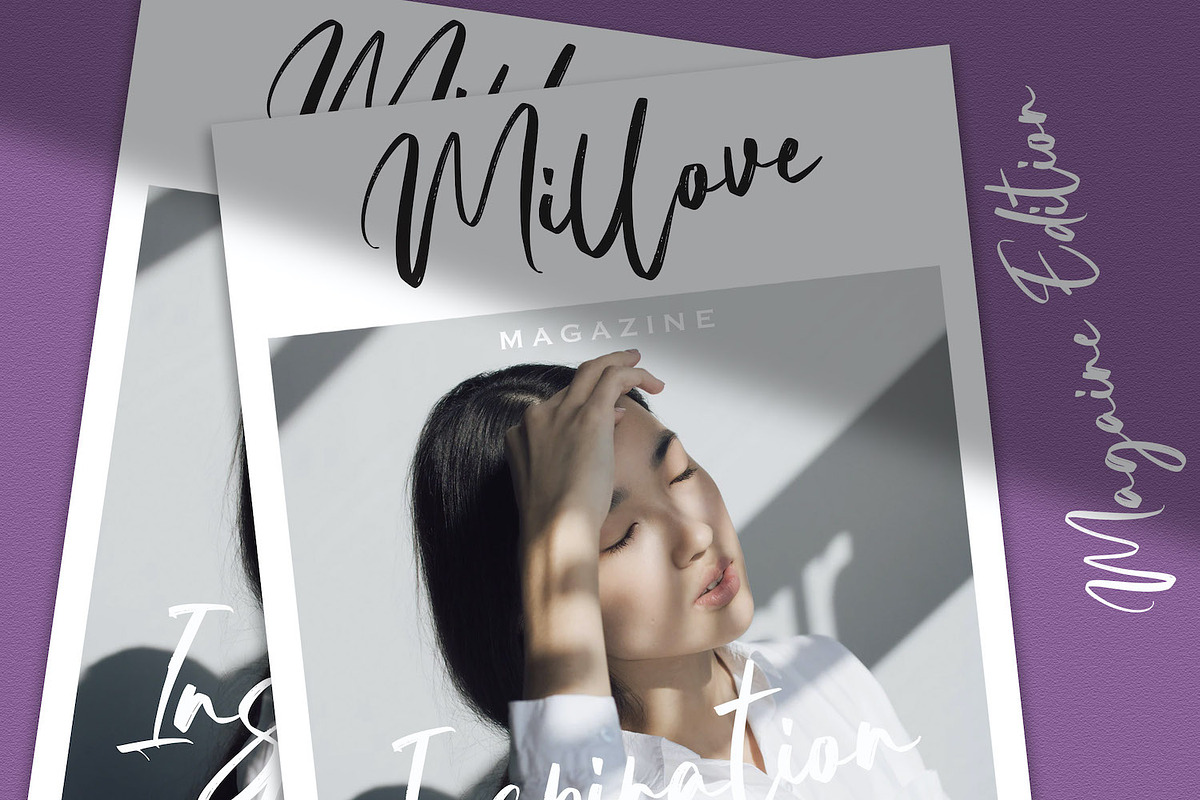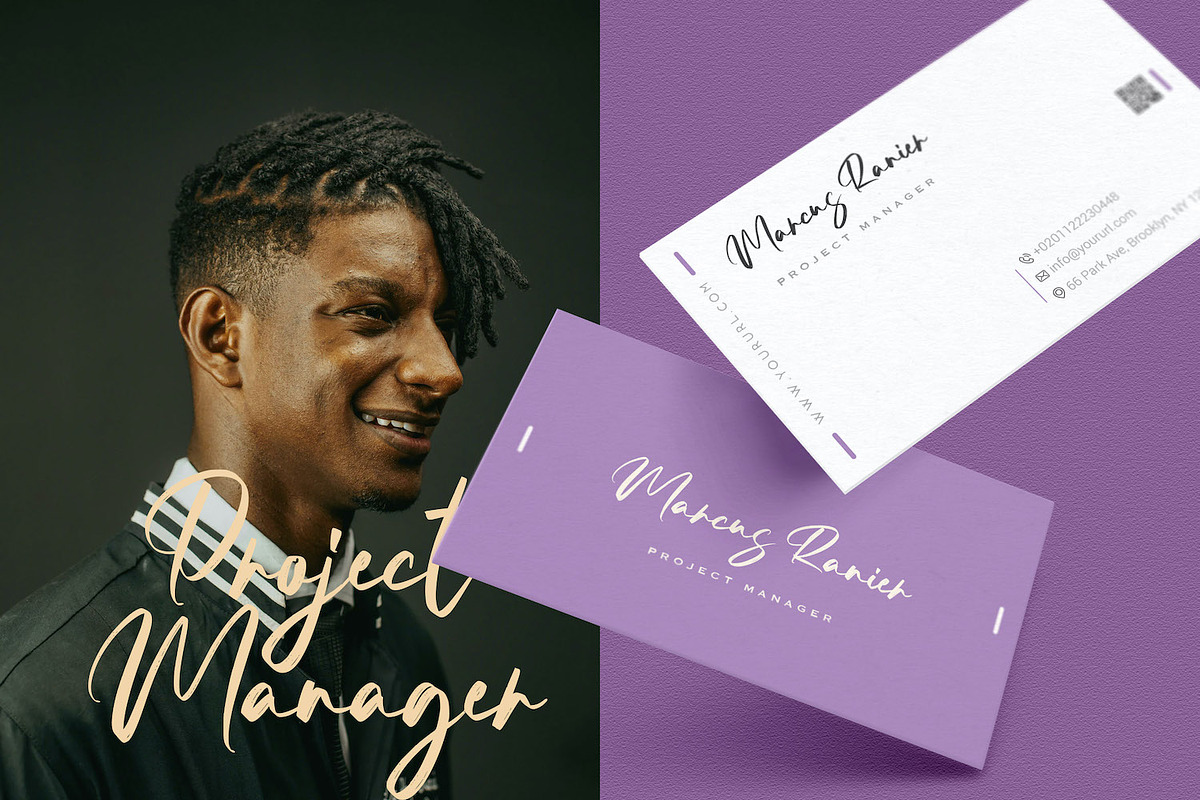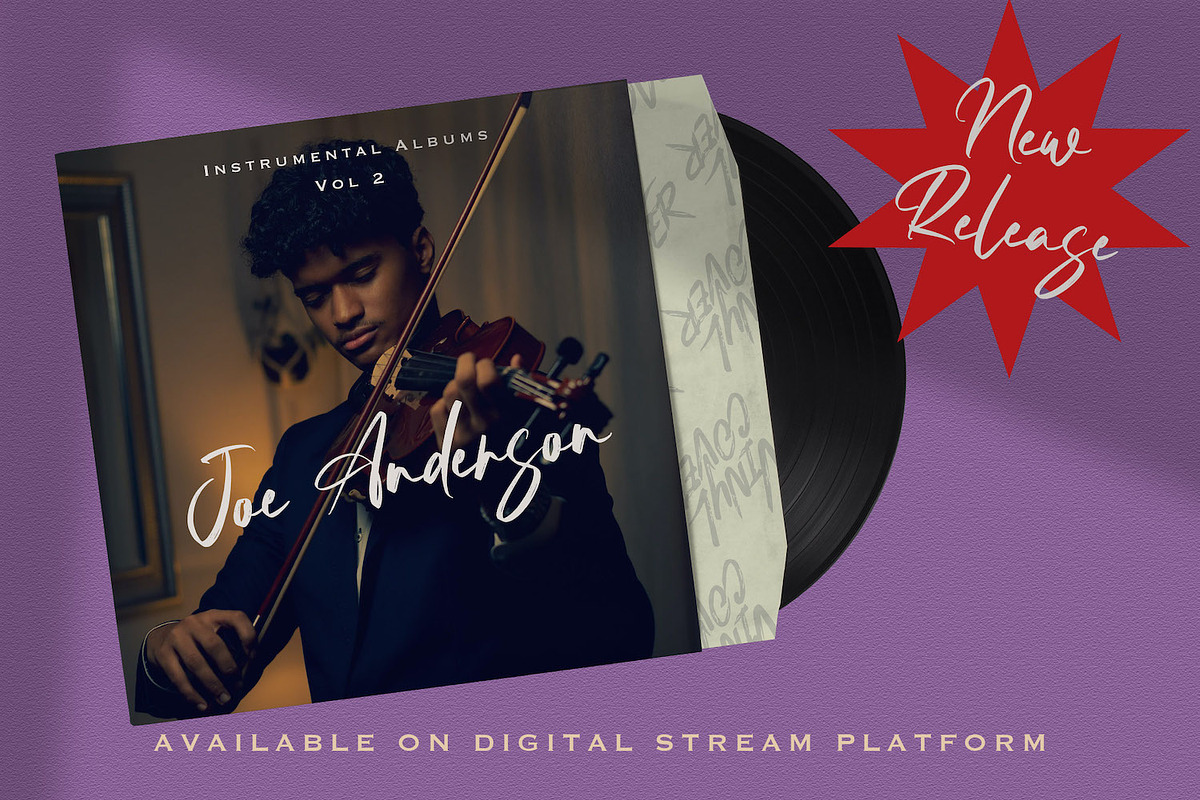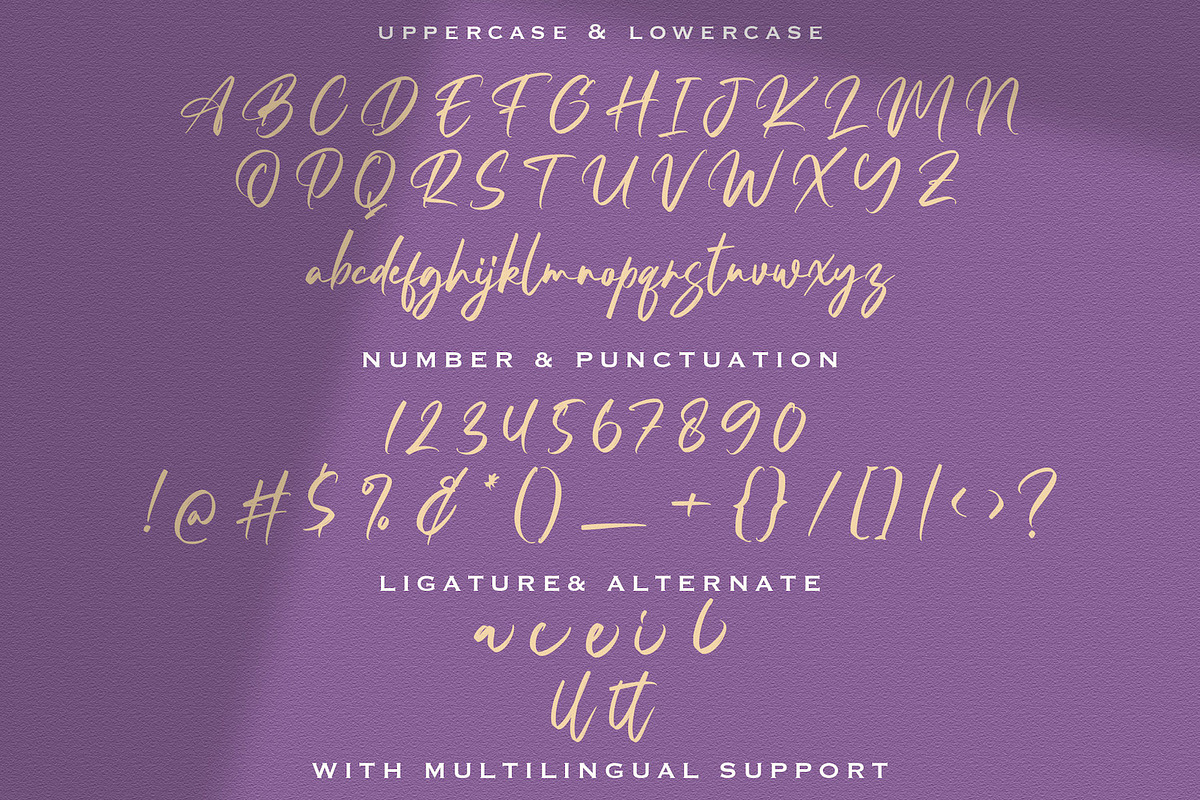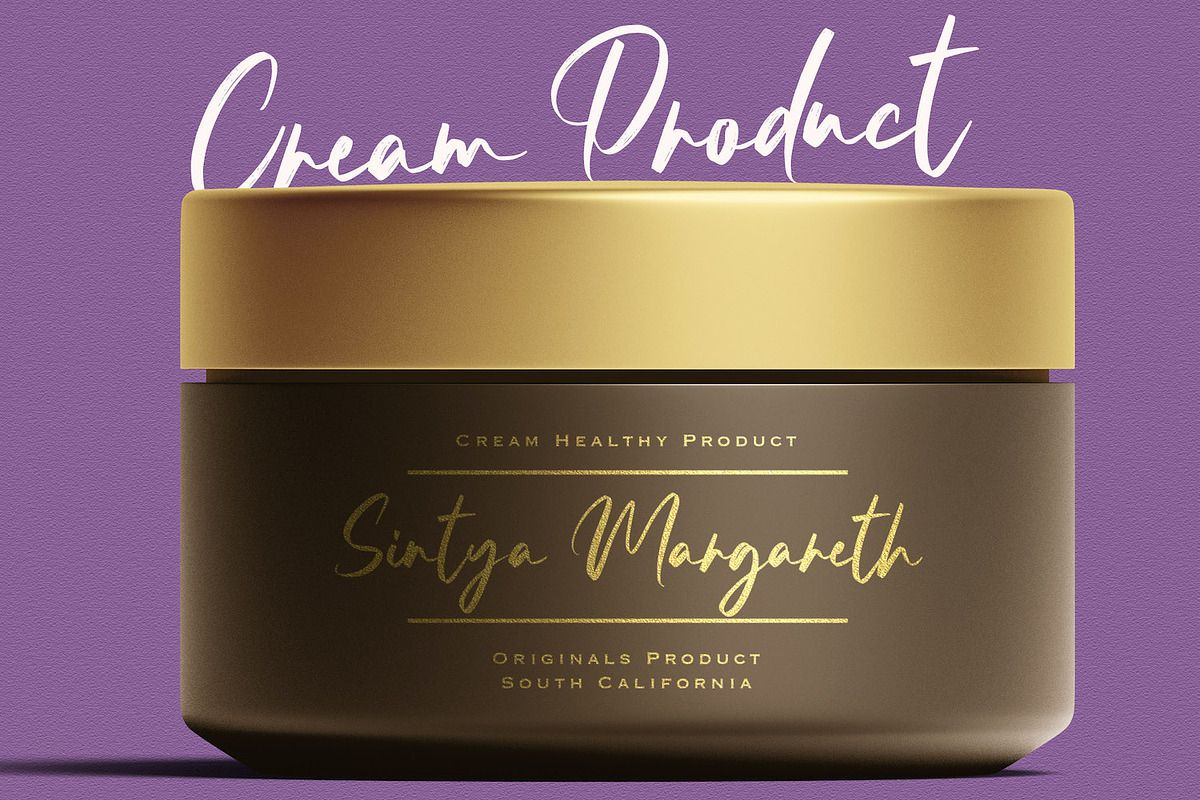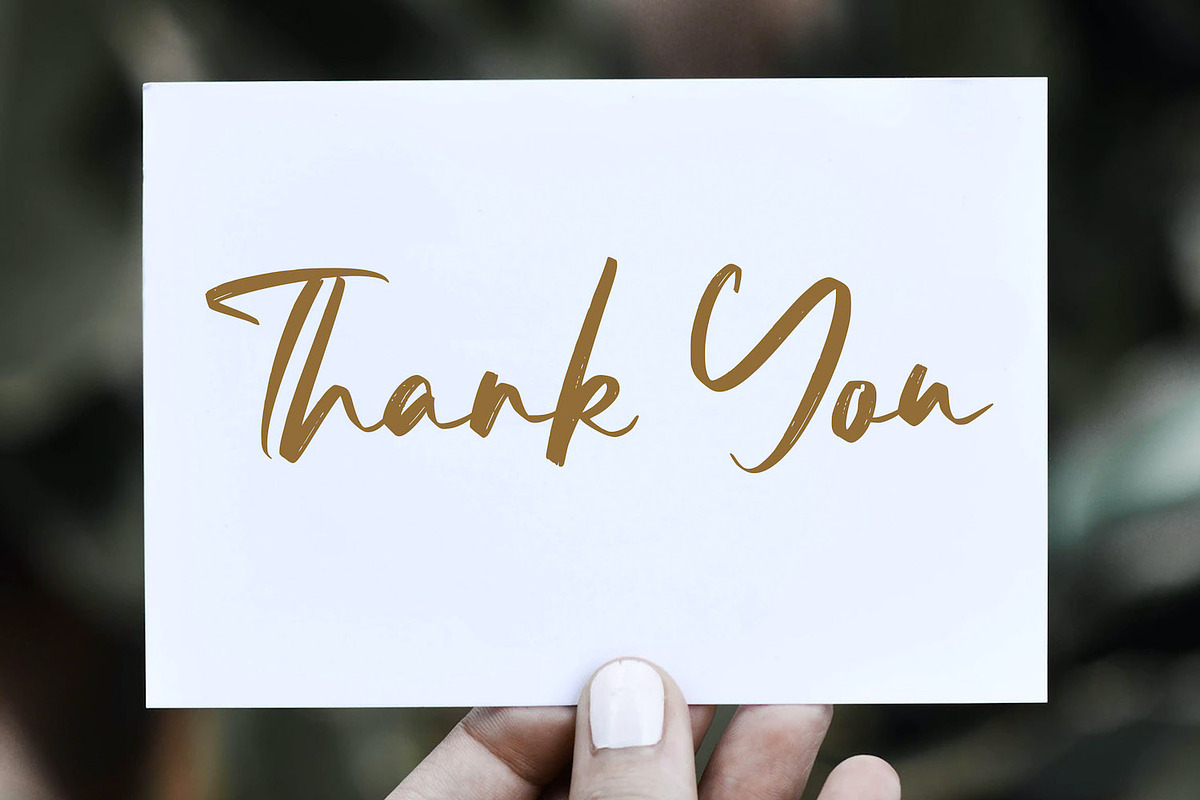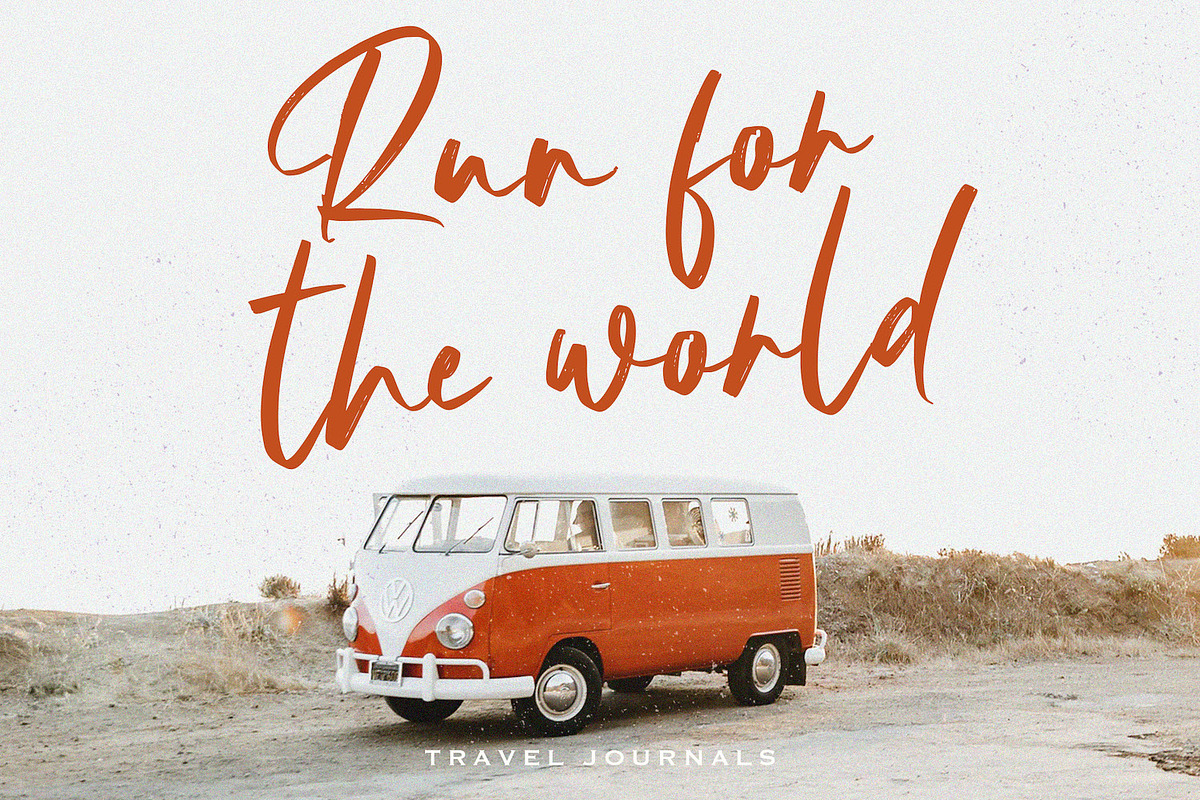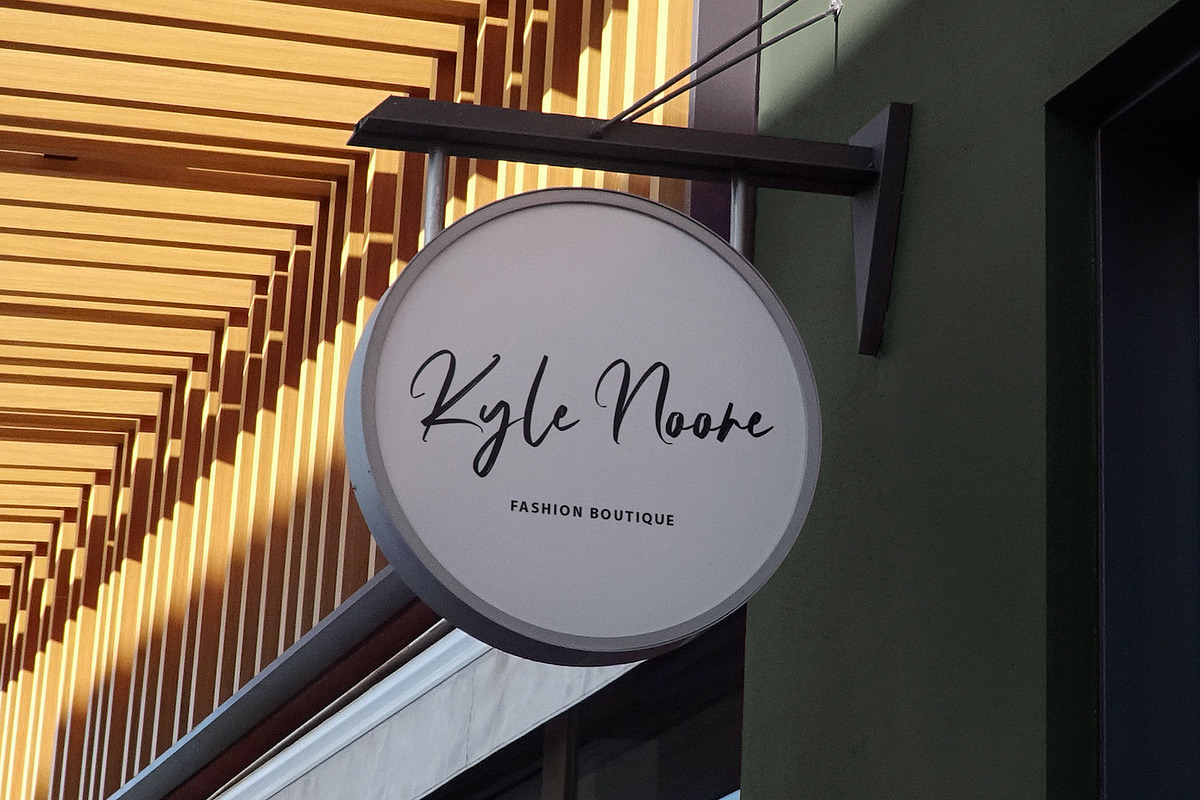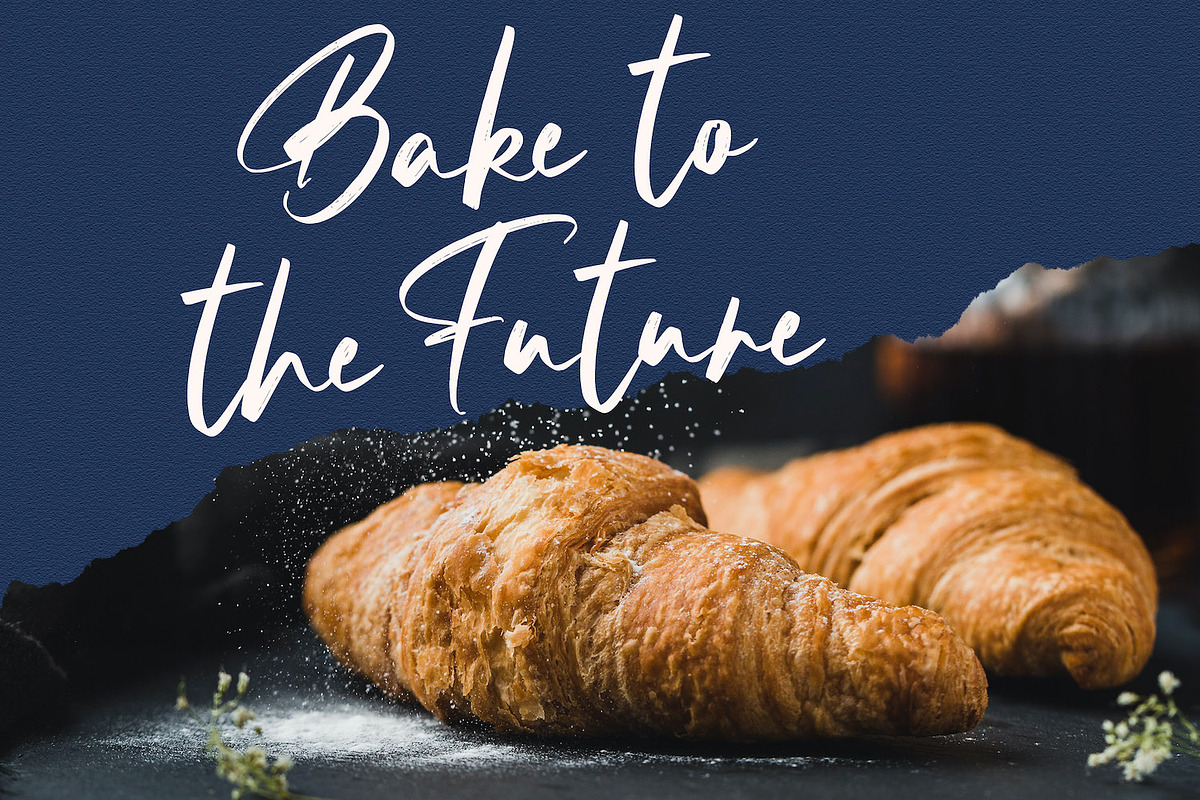
Resttu Pagi - Handwritten Font
Introducing Resttu Pagi - Handwritten Font
Resttu PagI is a delicate, elegant and flowing handwritten font. It has beautiful and well balanced characters and as a result, it matches a wide pool of designs. Add it to your most creative ideas and notice how it makes them come alive!